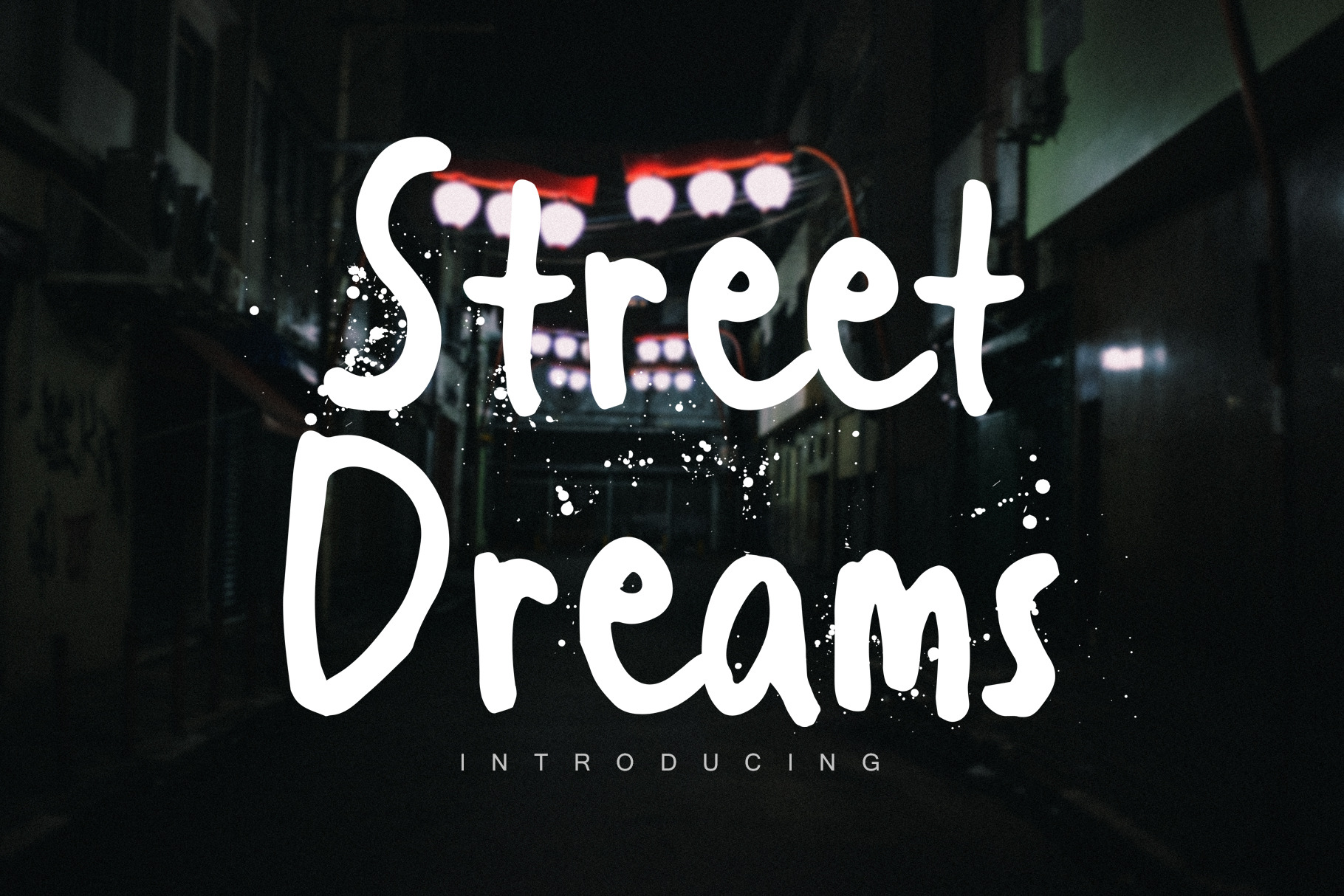
Street Dreams Brush Font
Introducing Street Dreams Font,manual hand drawn from real brush, You can use it for cover profile social media, instagram post, labeling, clothing, books,album covers, poster, any printable project .etc